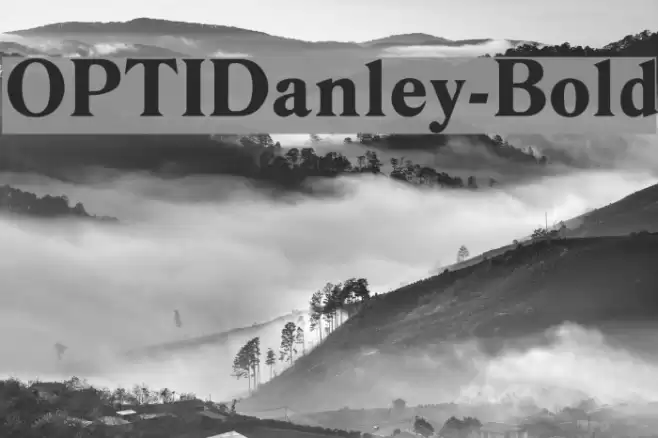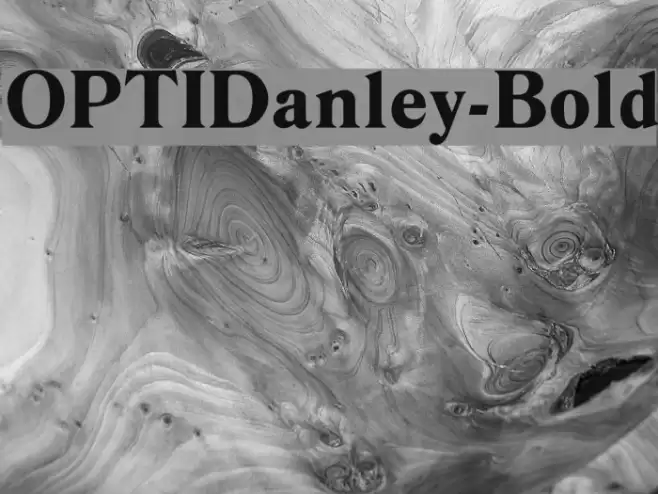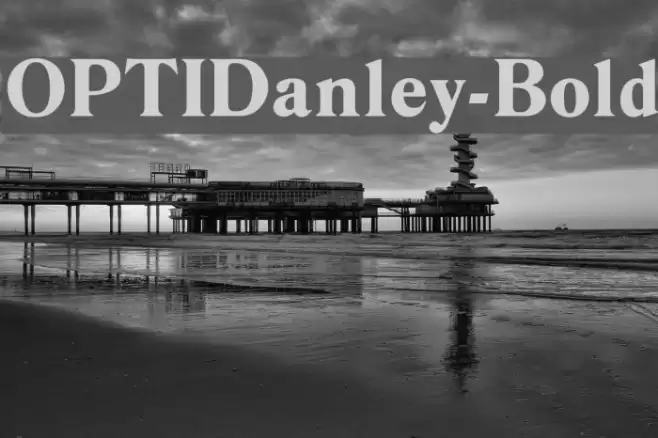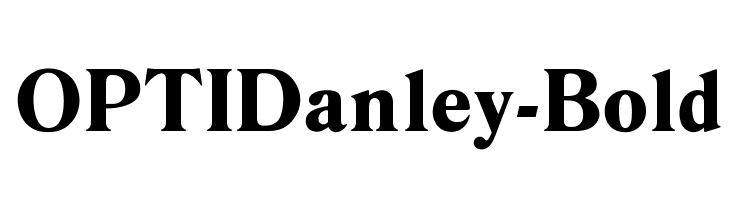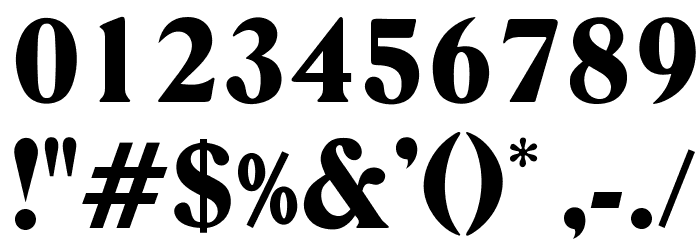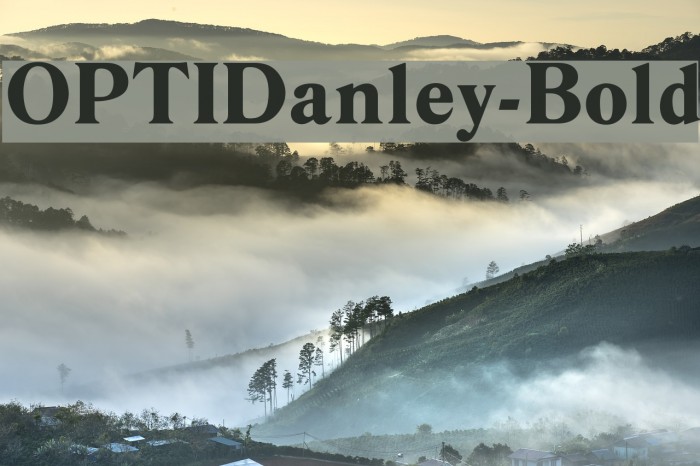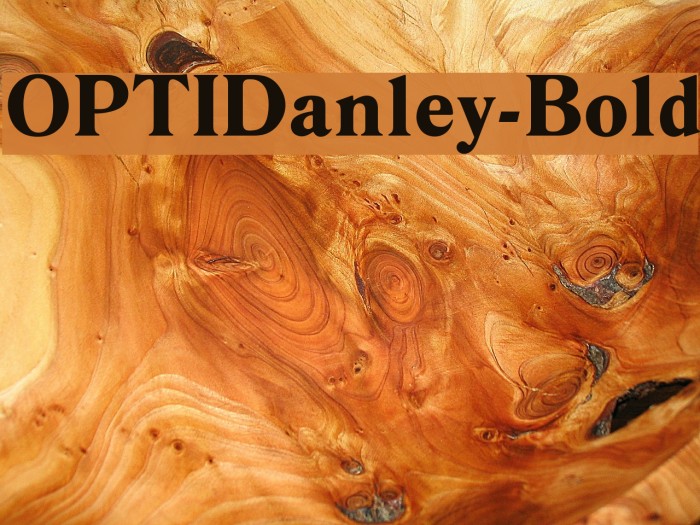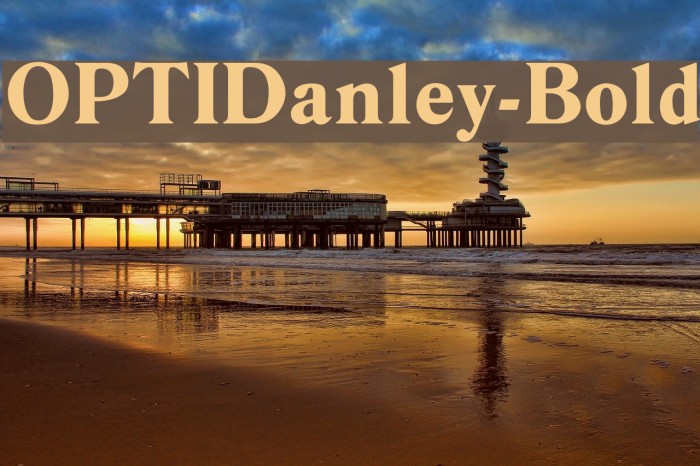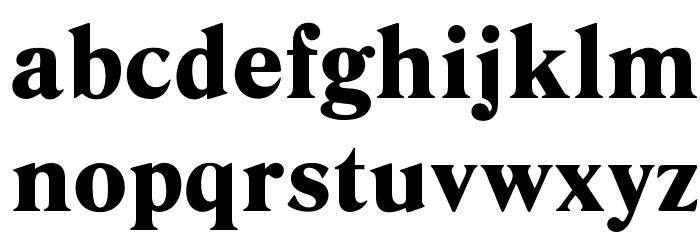
OPTIDanley-Bold Font
OPTIDanley-Bold Description
This font exhibits a bold and commanding presence with its thick, robust strokes and strong serifs. The uppercase letters are particularly striking, with a sense of authority and elegance. The lowercase letters maintain a consistent weight, ensuring readability while adding a touch of sophistication. The numerals are clear and well-defined, making them suitable for various applications. Special characters are designed with the same attention to detail, ensuring they complement the overall style. The font's boldness makes it ideal for headlines and titles, where impact is essential.
A bold serif font with strong strokes and elegant serifs, perfect for impactful headlines from Uncategorized fonts.
- Proposed Projects: Ideal for branding, advertising, book covers, and any project requiring a strong, authoritative typeface.
- Overall Style: Classic
- Use Case: Headlines, Logos, Branding